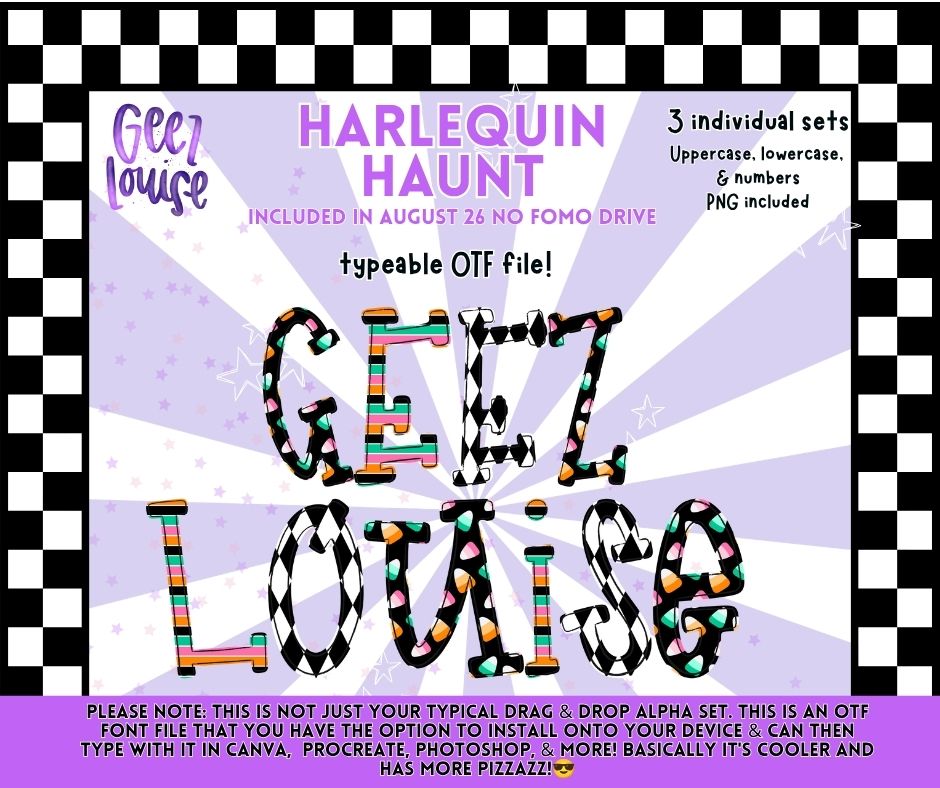
Harlequin Haunt OTF Font & PNG Alpha Bundle | Halloween Font | Uppercase, Lowercase & Numbers | August '26 No FOMO Drive
Create spooky projects with Harlequin Haunt, a Halloween OTF font that also includes matching PNG alpha files.